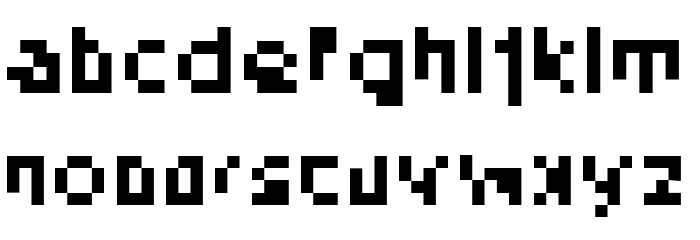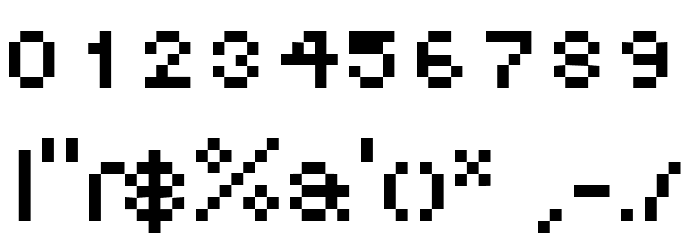
DePixel Illegible Font
This font features a pixelated, blocky design reminiscent of early digital displays and retro video games. Each character is constructed with a grid-like structure, giving it a distinctly digital and geometric appearance. The uniformity in stroke width across all characters contributes to a cohesive and consistent look, while the sharp angles and straight lines enhance its digital aesthetic. The font maintains a monospaced style, where each character occupies the same amount of horizontal space, making it ideal for coding or digital interfaces. The uppercase and lowercase letters are clearly distinguishable, with the lowercase letters maintaining the same pixelated style but with slightly smaller dimensions. Numerals and special characters are crafted with the same attention to pixelated detail, ensuring a harmonious overall design.
A pixelated, monospaced font with a retro digital aesthetic.
- Font: DePixel Illegible
- Proposed Projects: Ideal for retro video game design, digital art projects, coding interfaces, and any project requiring a vintage digital look.
- Overall Style: Retro, Digital
- Use Case: Digital displays, Coding, Retro-themed designs